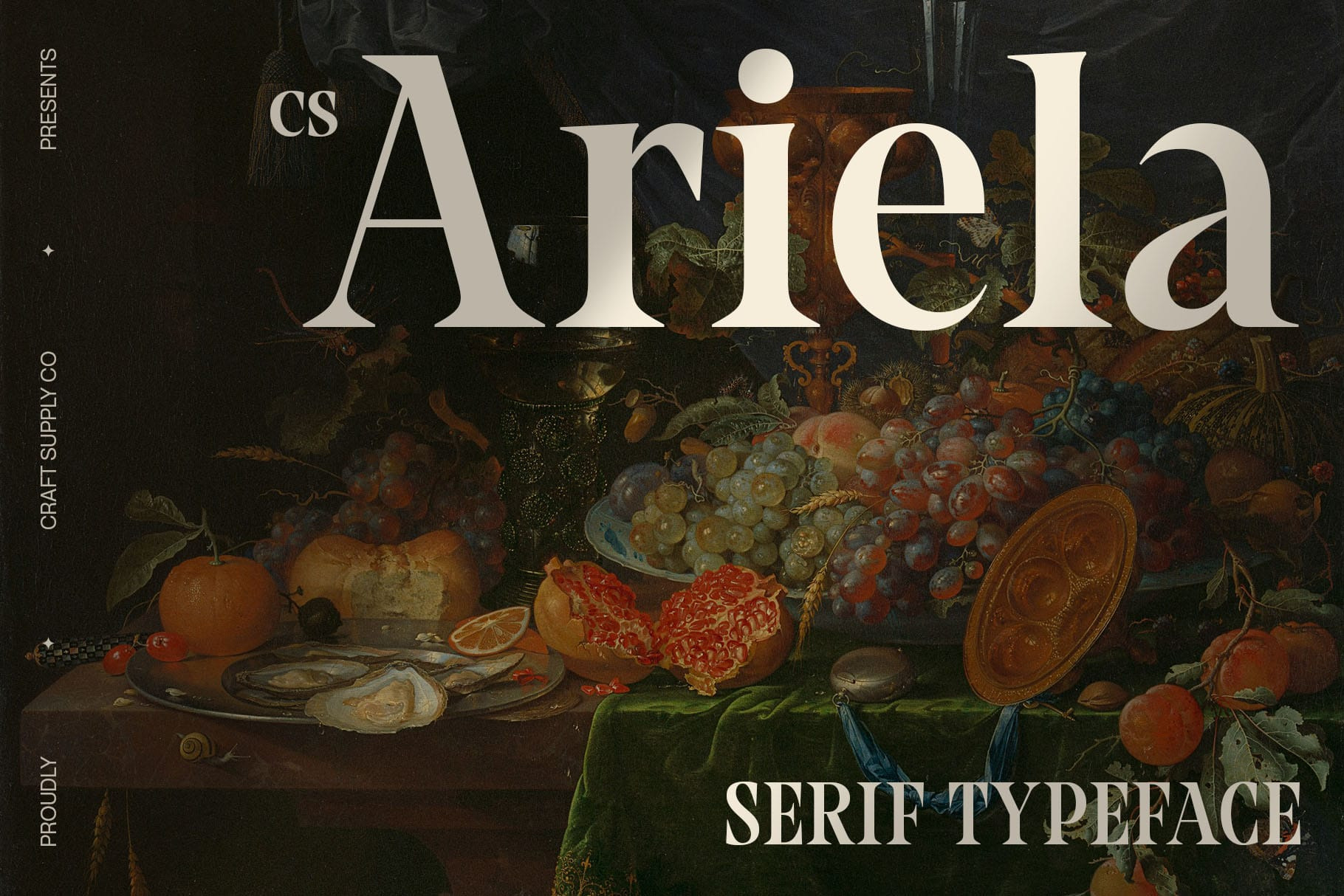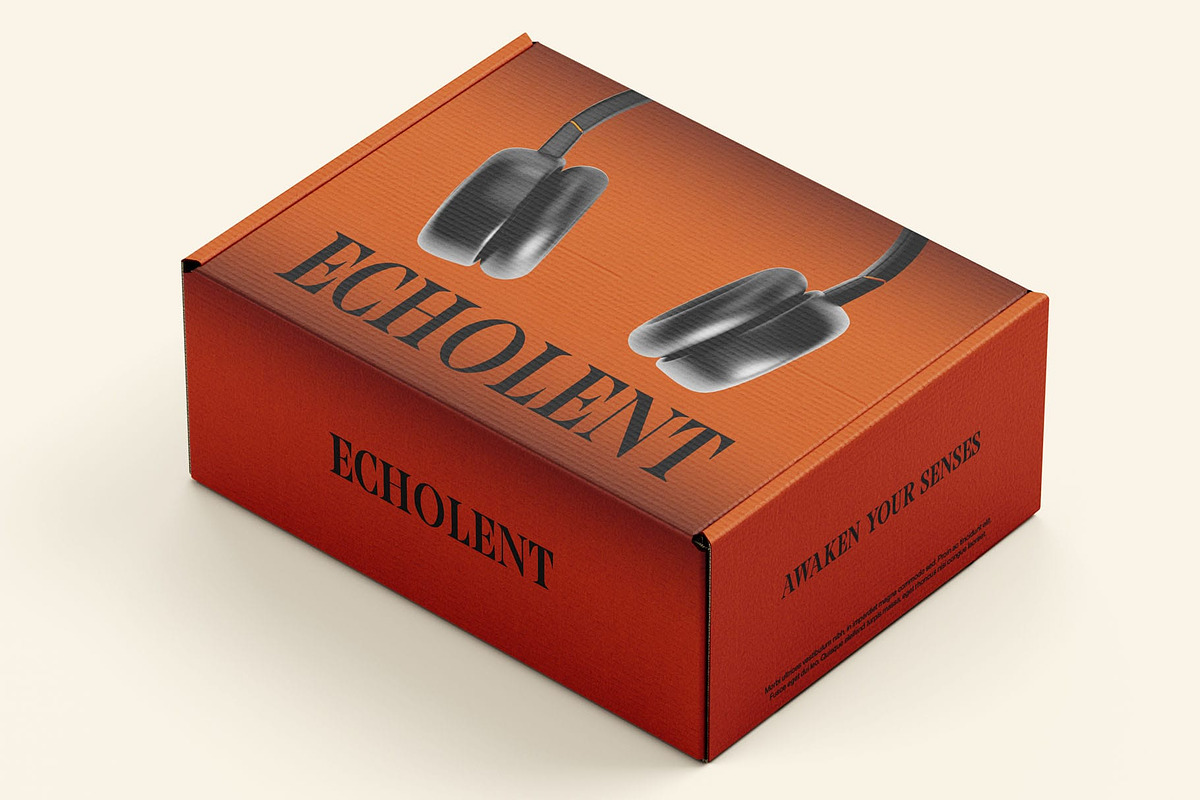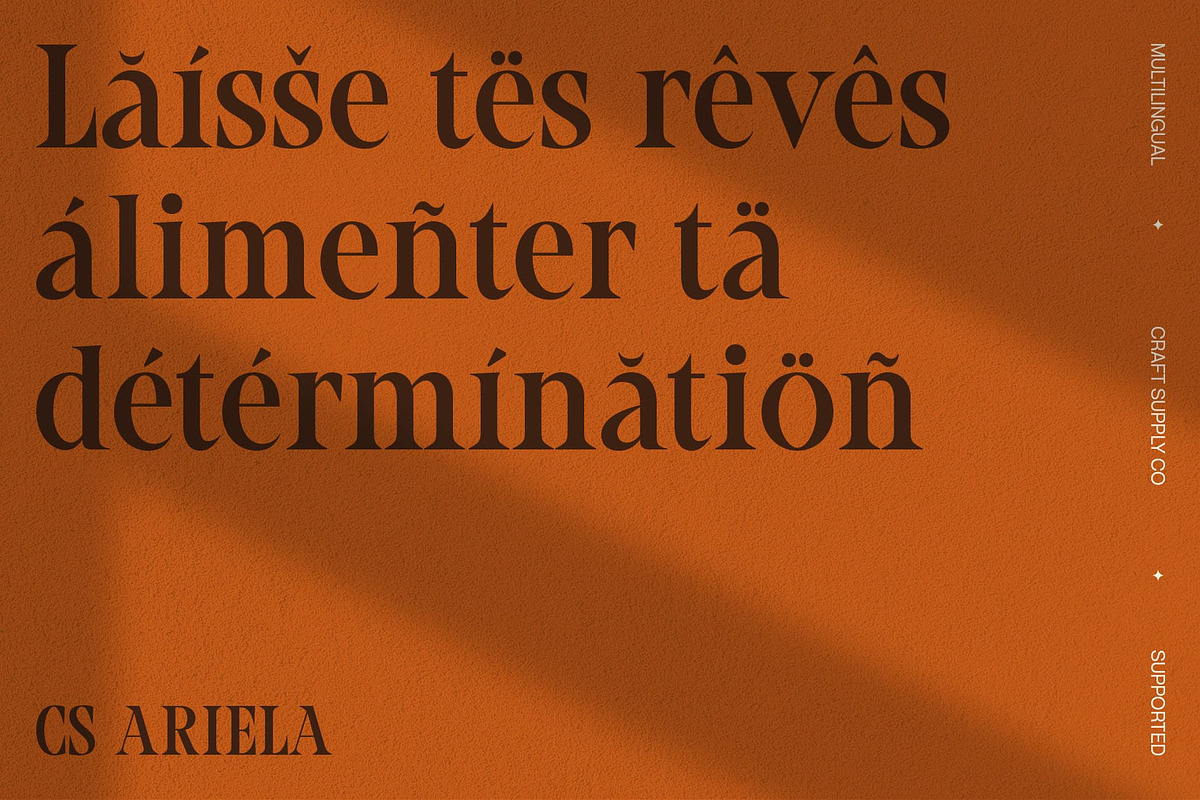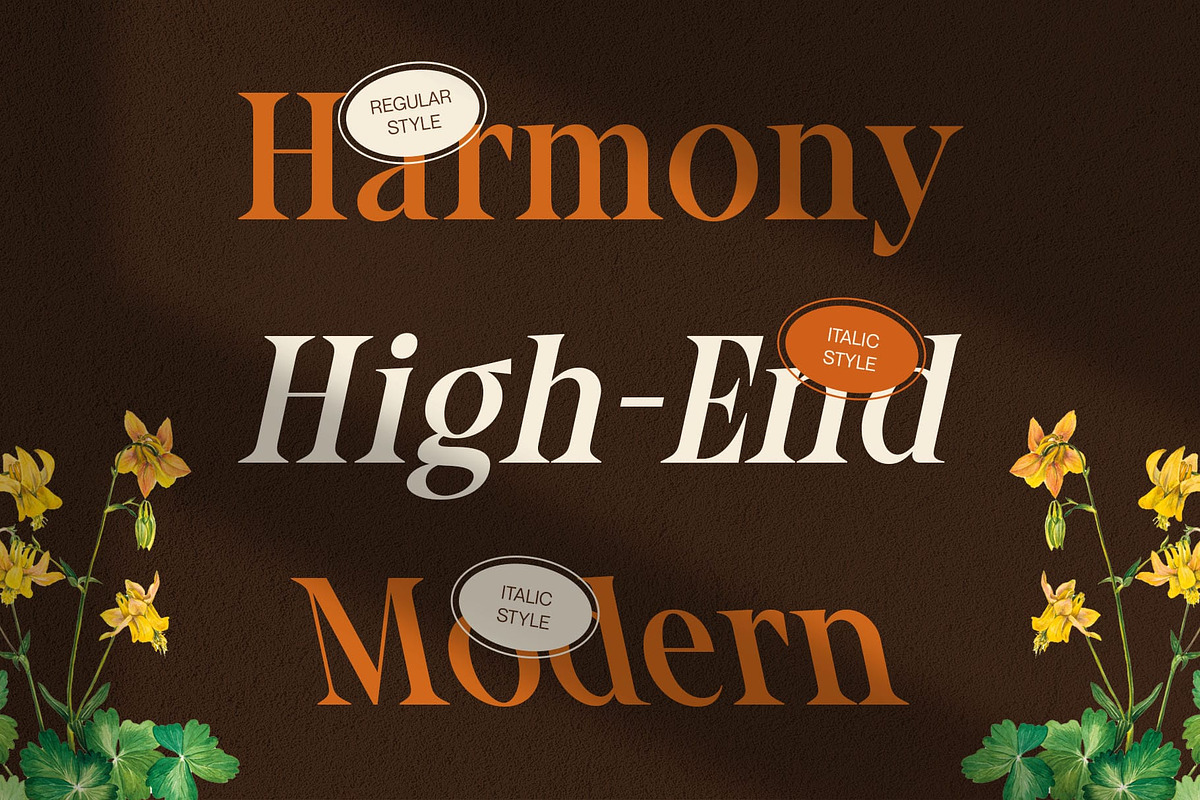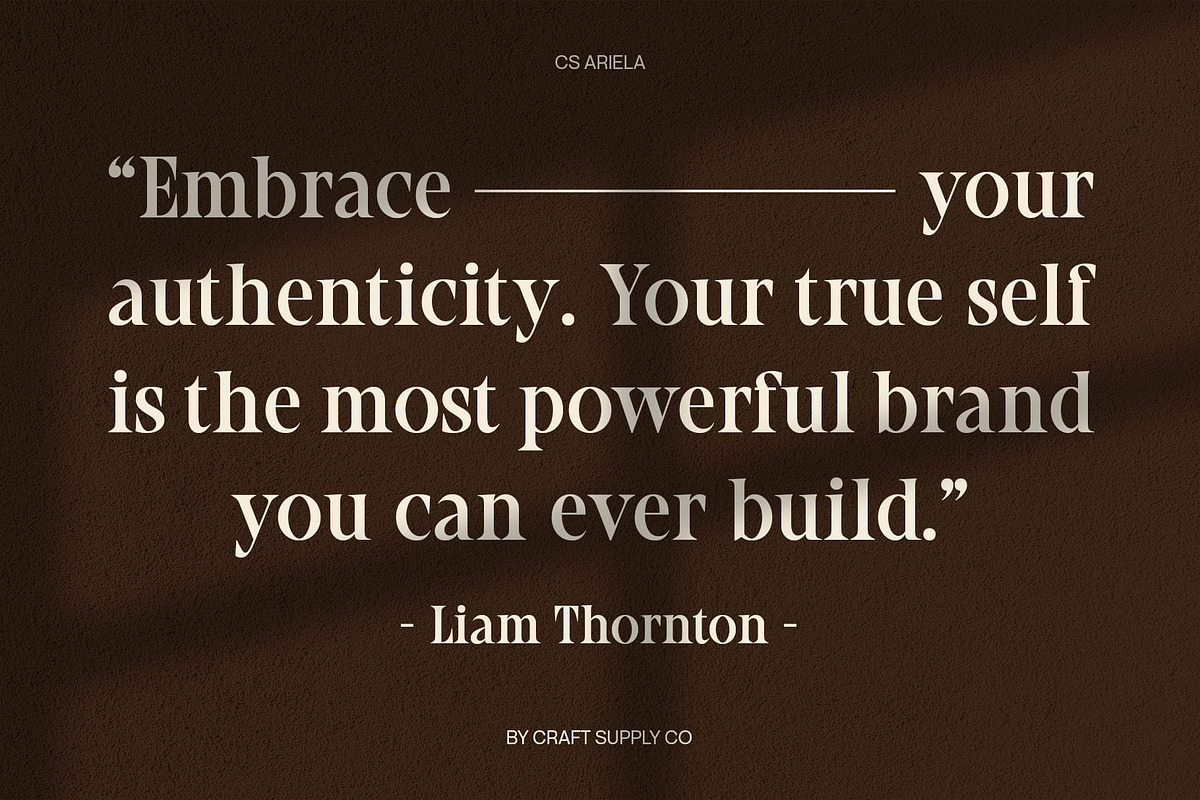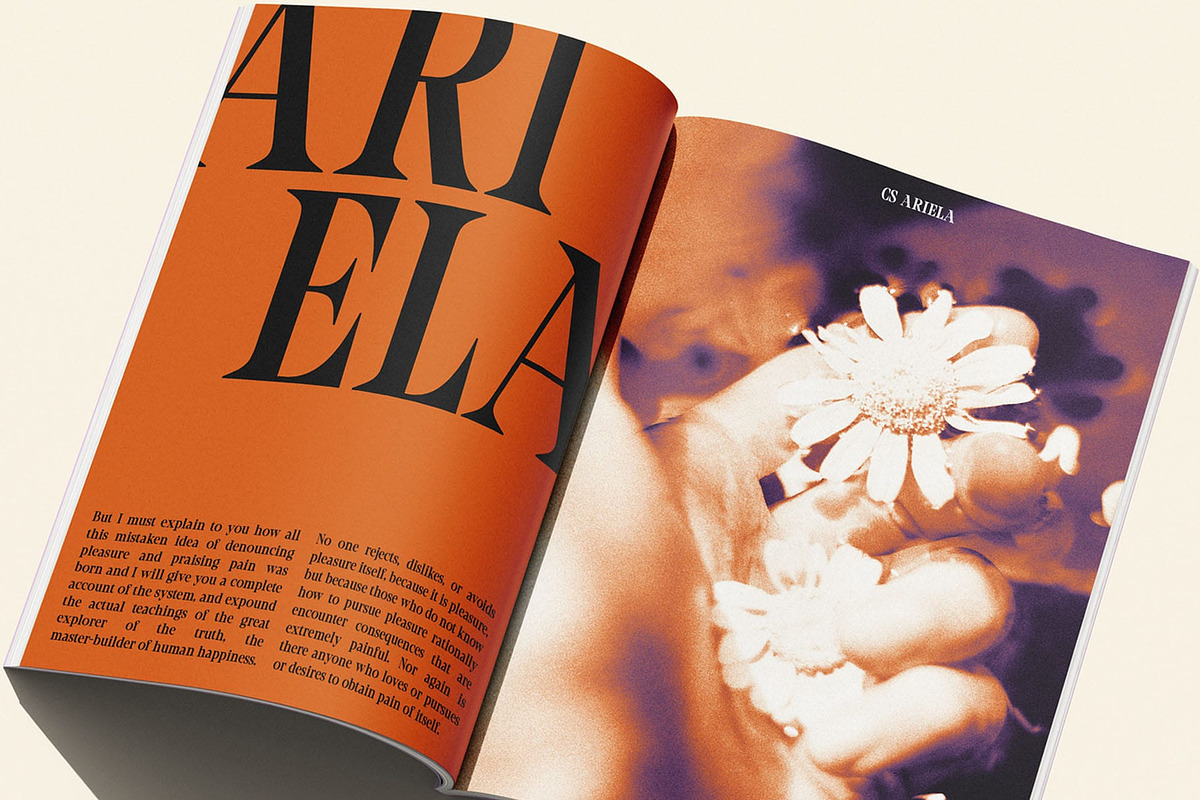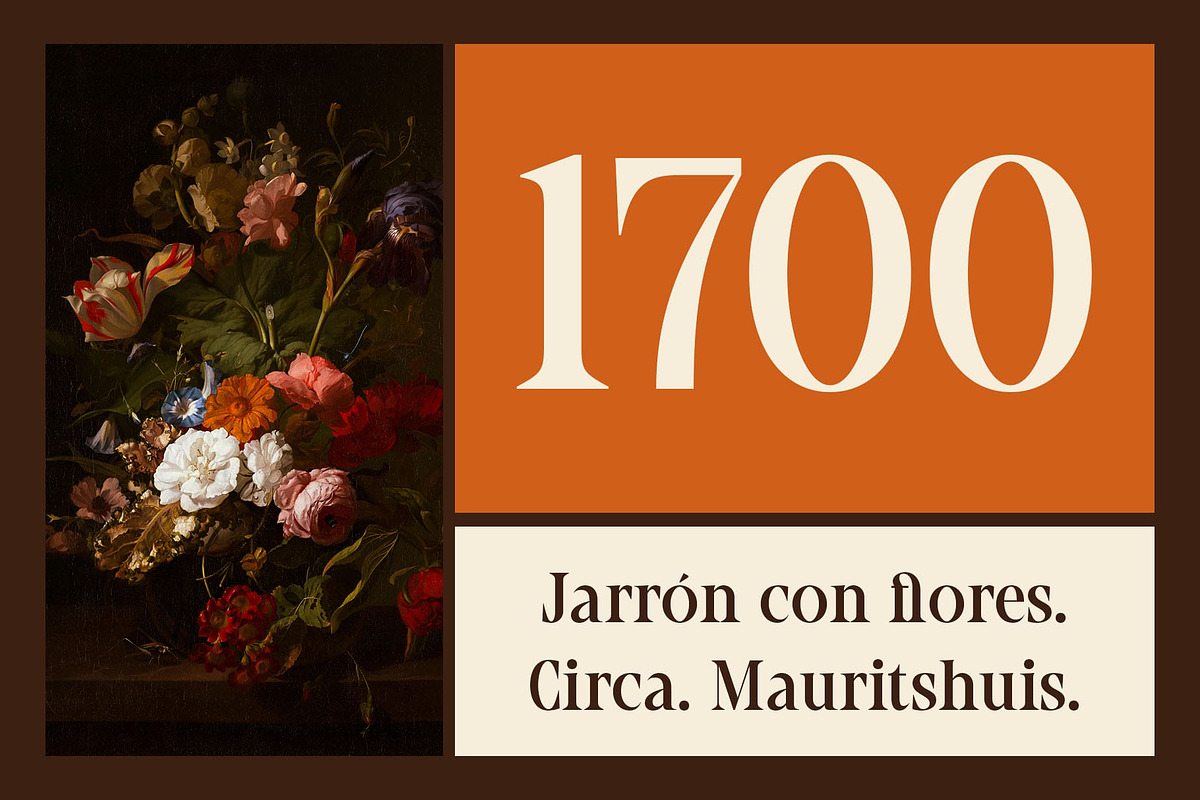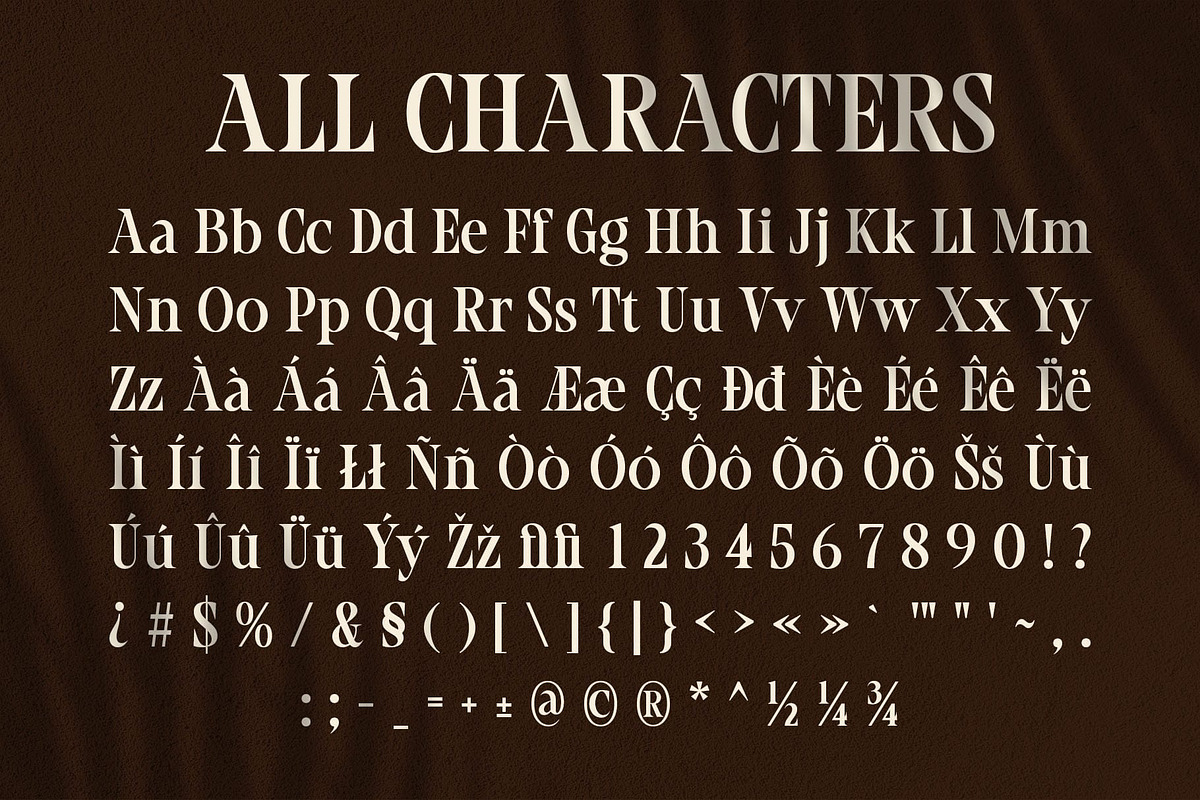
CS Ariela – Classic Font
CS Ariela – Classic Font: Elegant, Professional, and Timeless
A Fusion of Tradition and Modernity CS Ariela is a modern classic serif font that combines the best of traditional serif design with a cleaner, more contemporary aesthetic. Featuring bold, neat serifs and a distinct contrast between thick and thin strokes, it strikes a perfect balance between elegance and stability. Its structured, symmetrical letterforms offer a refined appearance, making it an ideal choice for formal and prestigious applications.
Sophisticated and Credible Design With its formal shape and serious tone, CS Ariela exudes a sense of professionalism and credibility. The carefully crafted letterforms enhance its traditional appeal, while the subtle modern touches ensure it remains relevant in today’s design world. Whether for official documents, books, or historical texts, this font adds an air of authority and prestige.
Ideal for High-End, Serious Projects CS Ariela is the perfect font for projects that prioritize sophistication and a refined visual presence. Its timeless design ensures it excels in high-stakes environments, from academic publications to corporate branding. Offering both strength and elegance, it’s the ideal choice for conveying a serious, yet stylish, tone that resonates with professionalism and trustworthiness.
- CS Ariela Regular
- CS Ariela Italic
- CS Ariela Reverse Italic